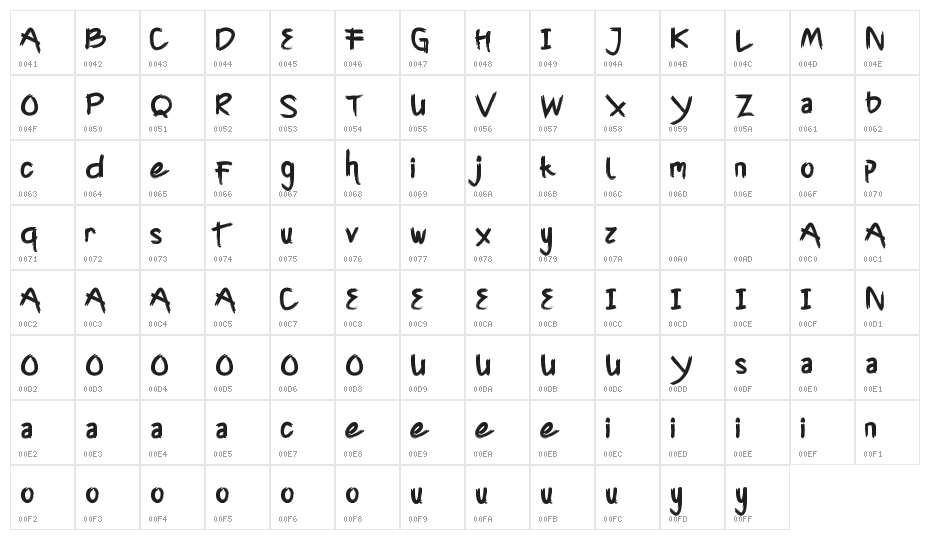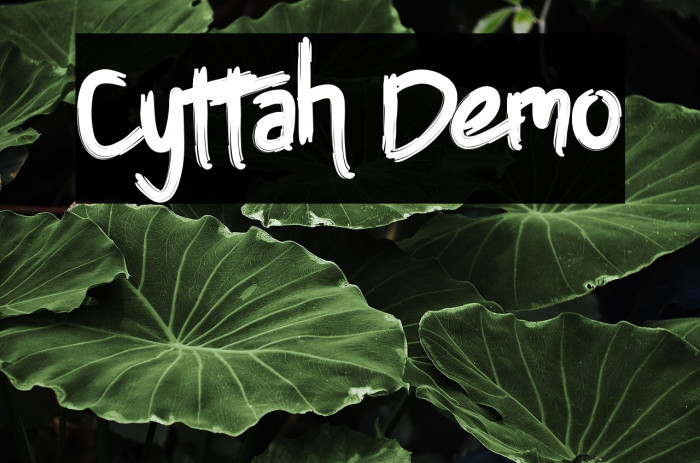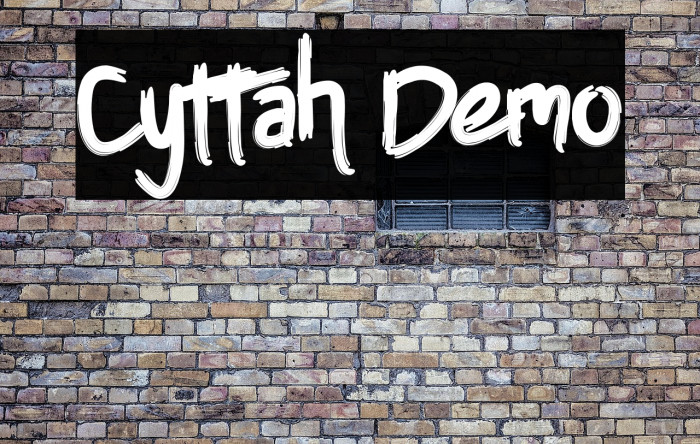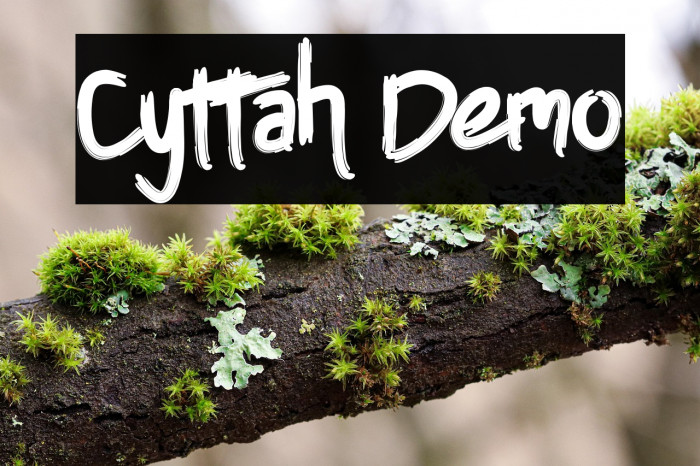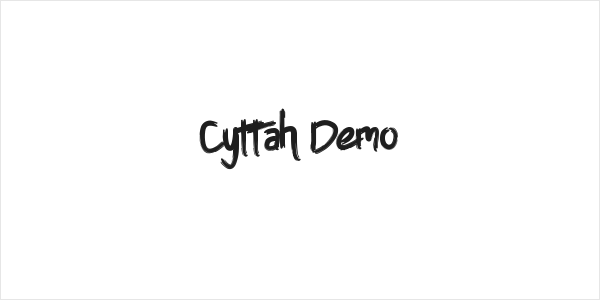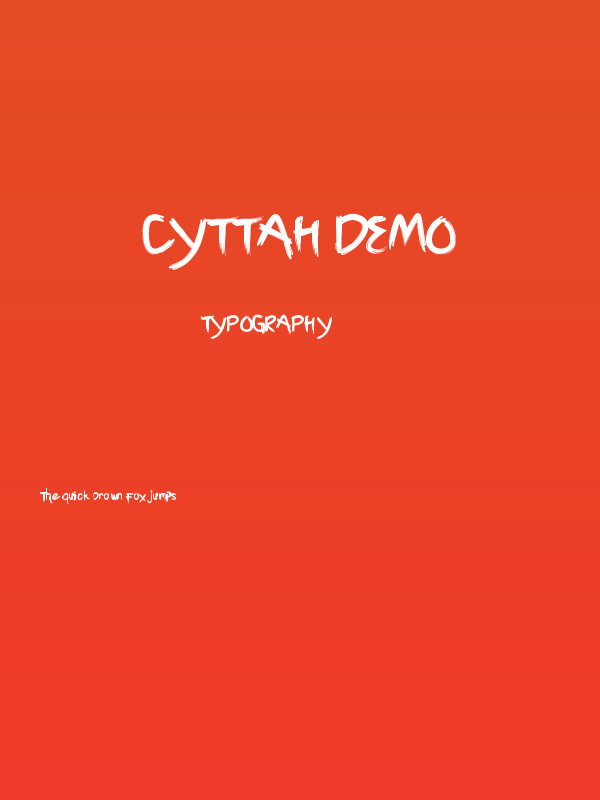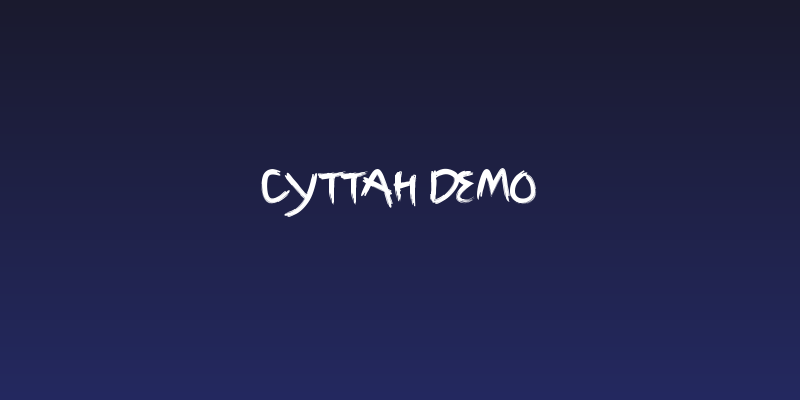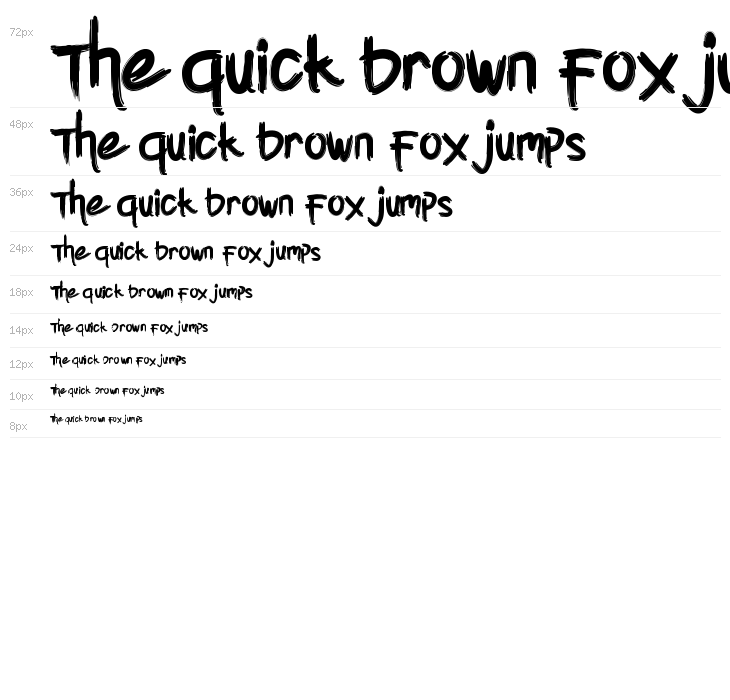
Cyttah Demo Font
Cyttah Demo Description
This font features a bold, brush-like style that exudes energy and dynamism. The strokes are thick and uneven, giving it a hand-painted appearance that is both artistic and expressive. The uppercase and lowercase letters maintain a consistent style, with a slightly aggressive slant and sharp edges that add to its bold character. The font's unique texture and irregularities make it stand out, perfect for projects that require a touch of creativity and flair. Its distinctiveness is further enhanced by the varying thickness of the strokes, which adds depth and dimension to the text.
Overall StyleModern, Artistic
Proposed ProjectsIdeal for posters, album covers, branding, and any creative projects needing a bold statement.